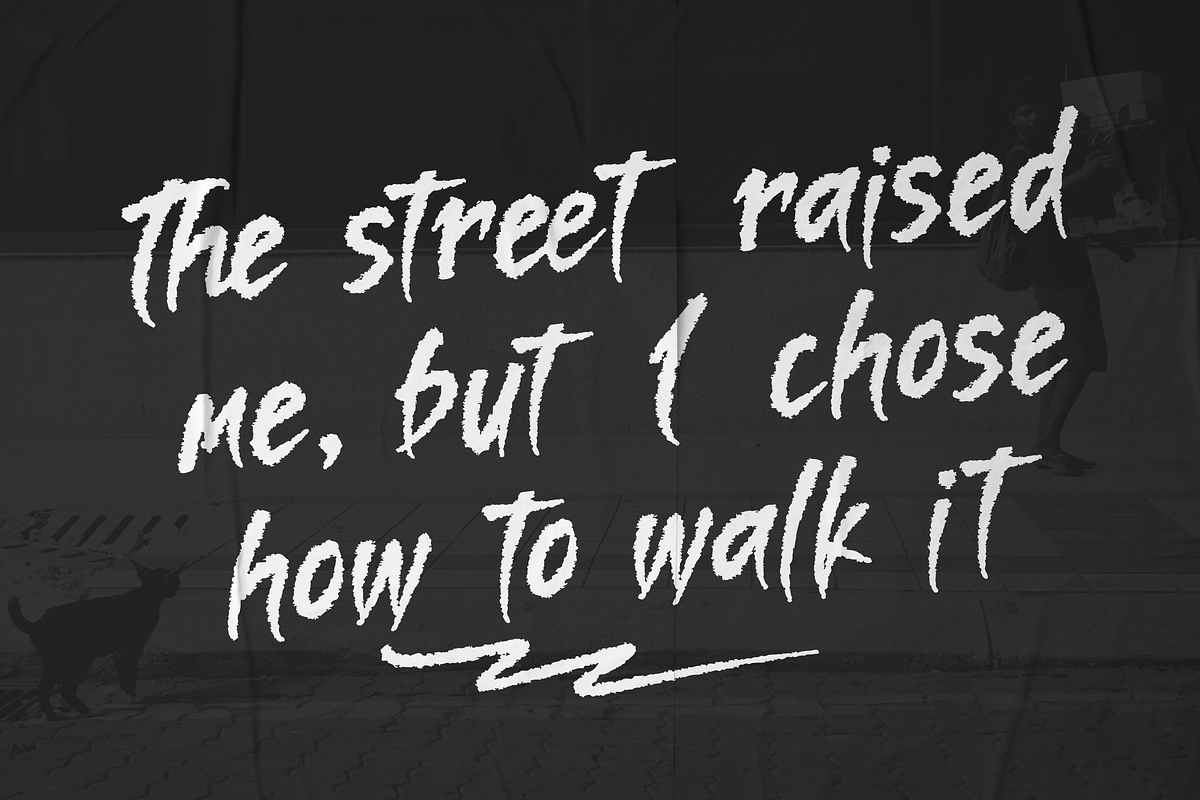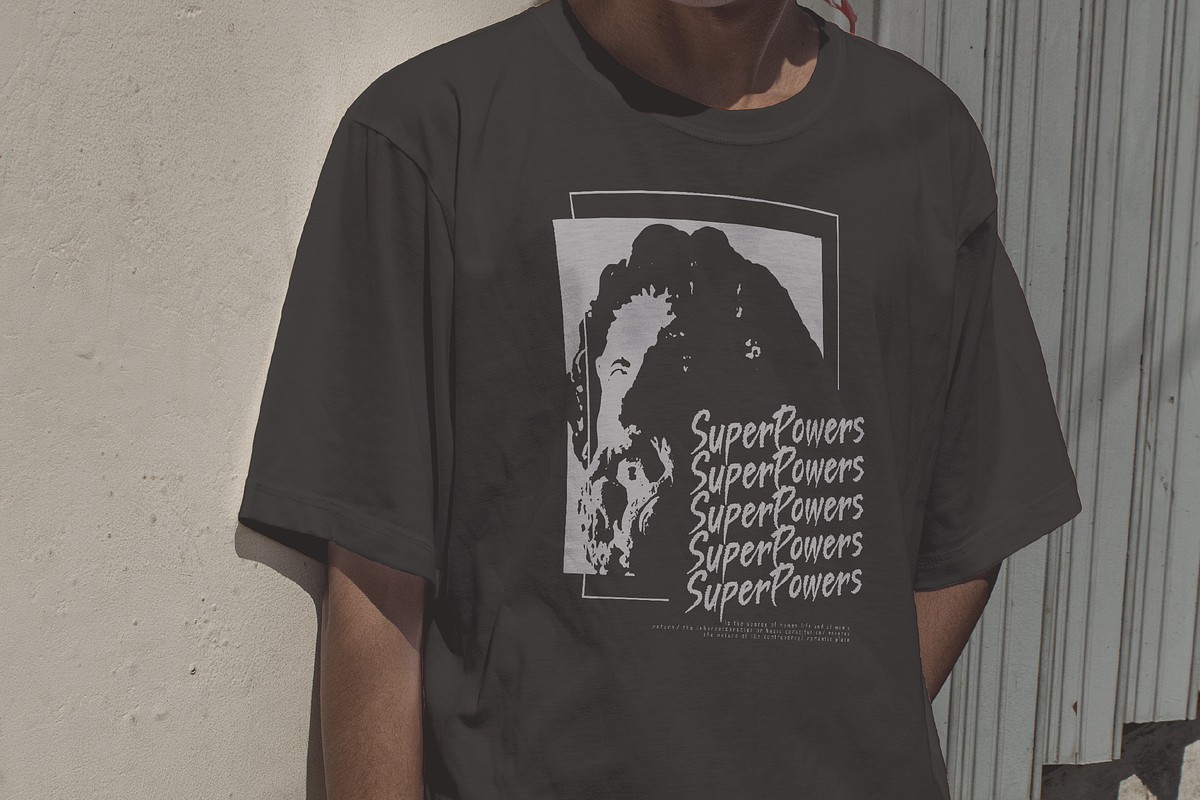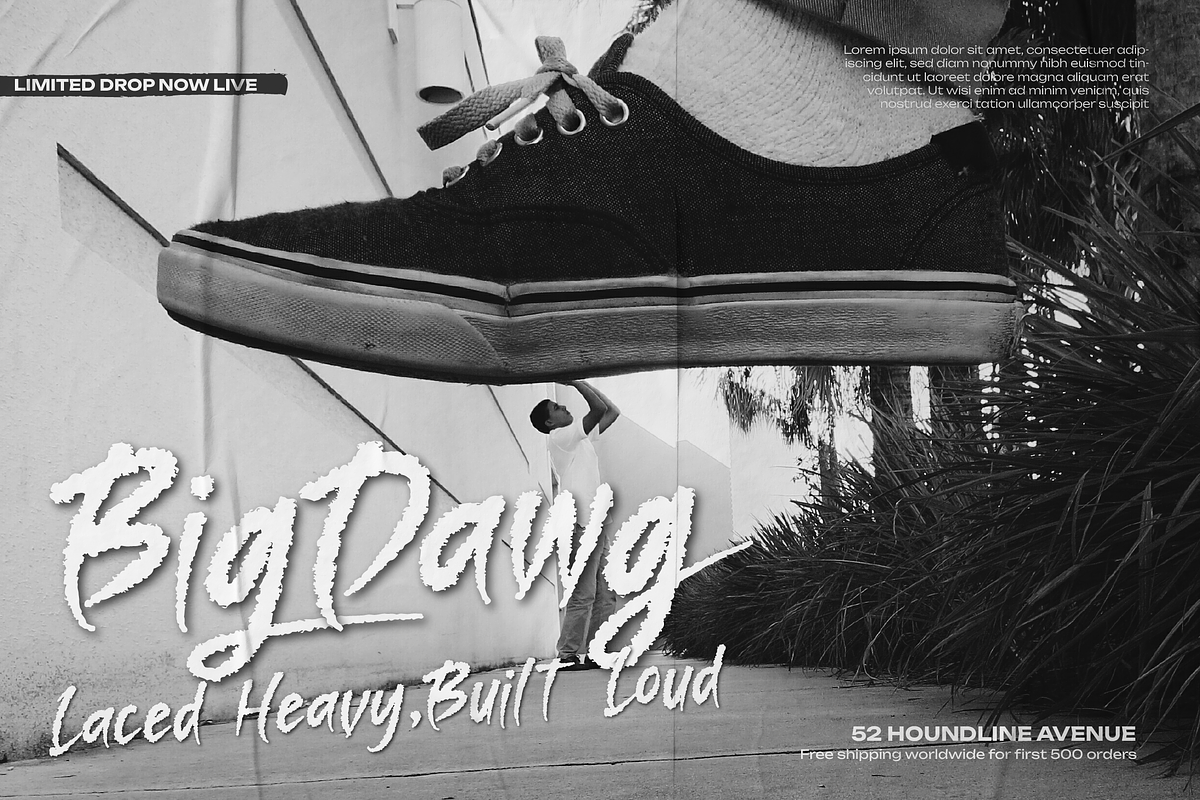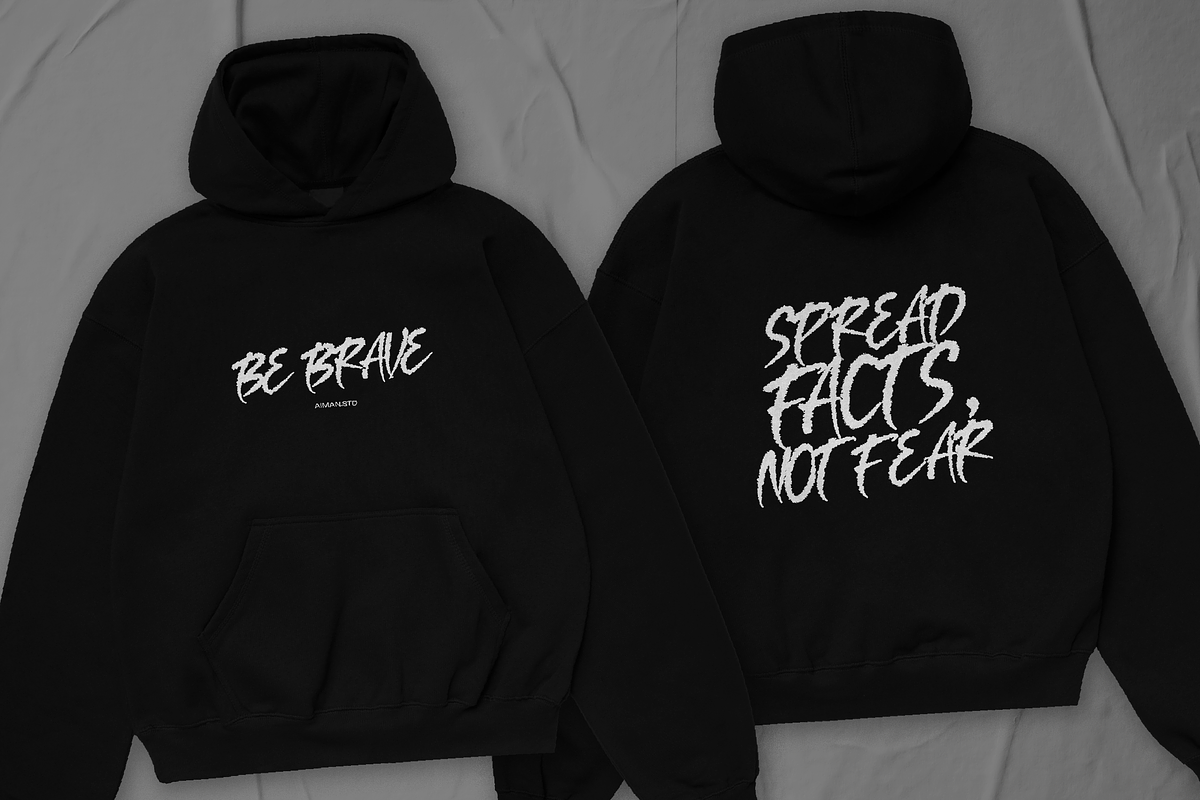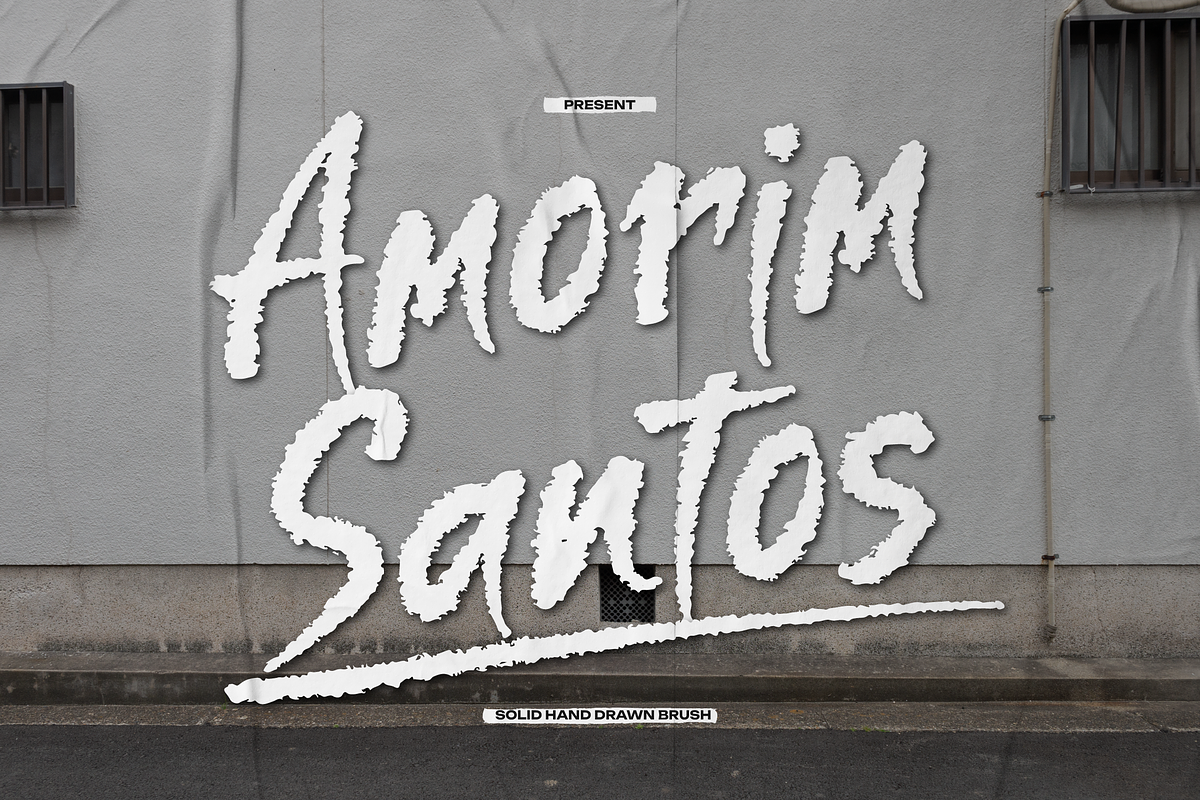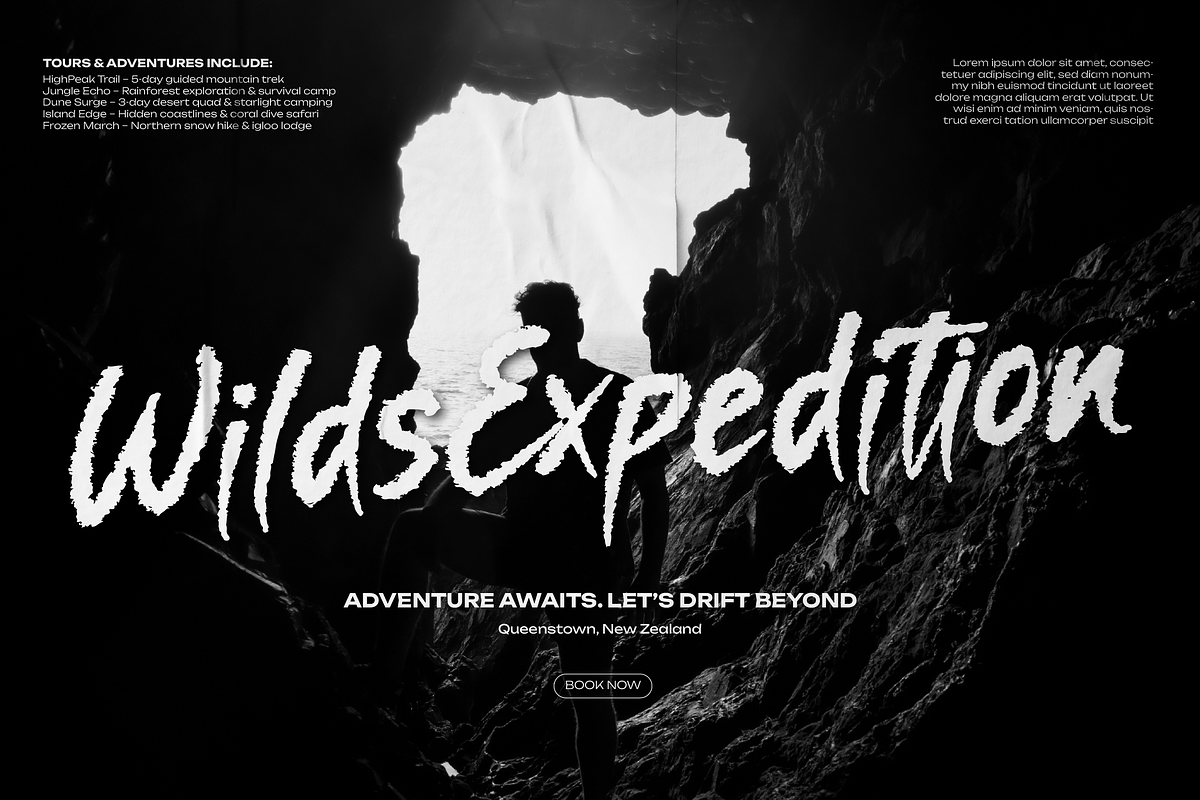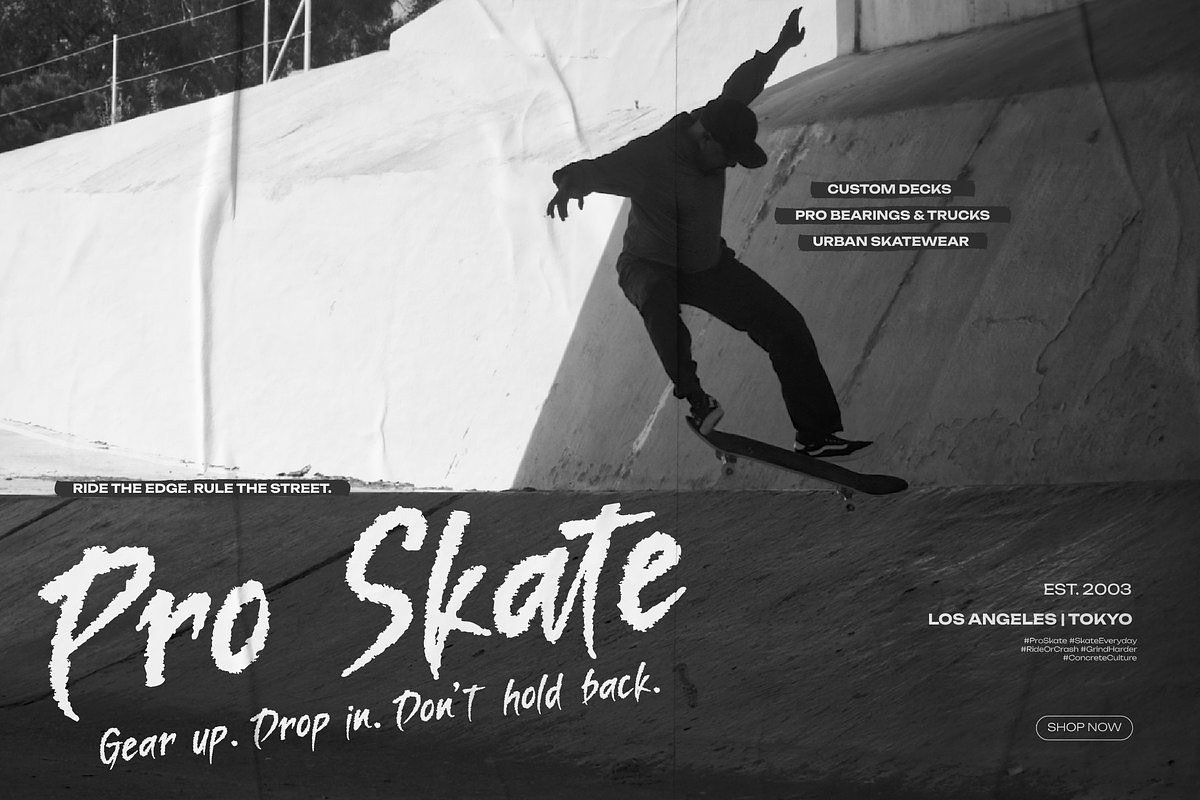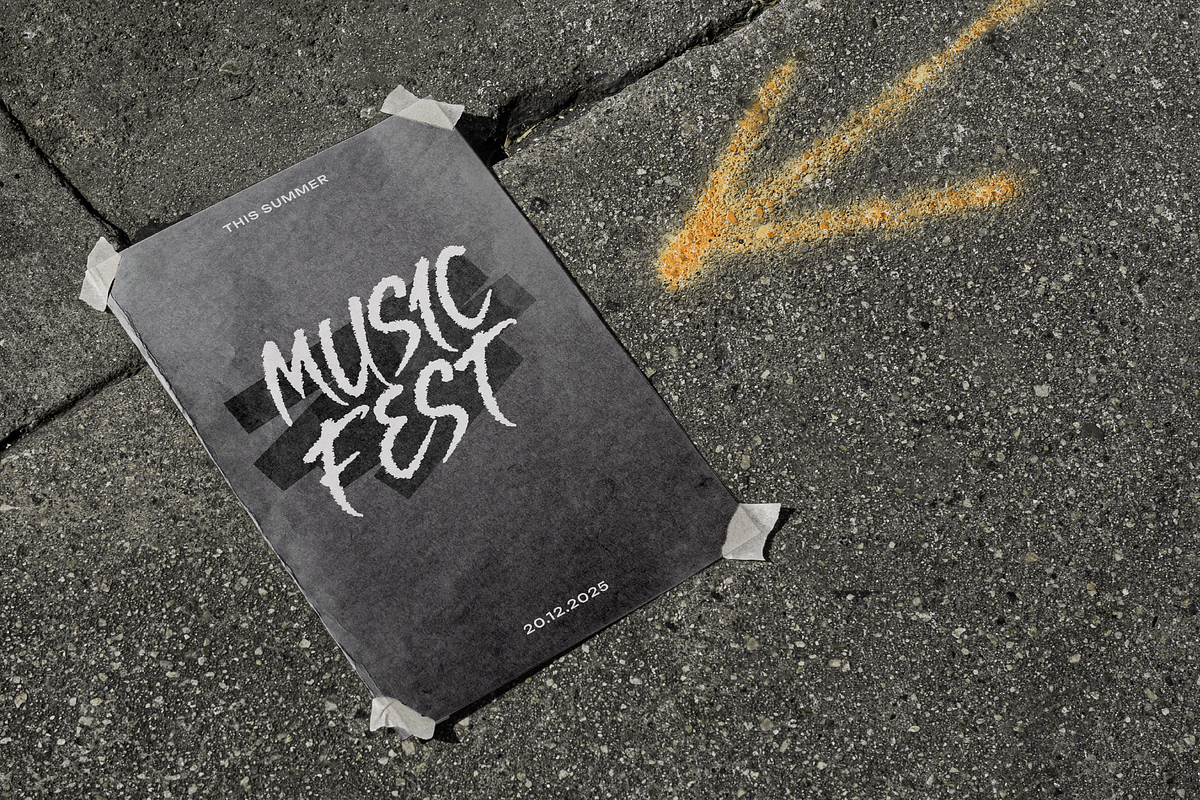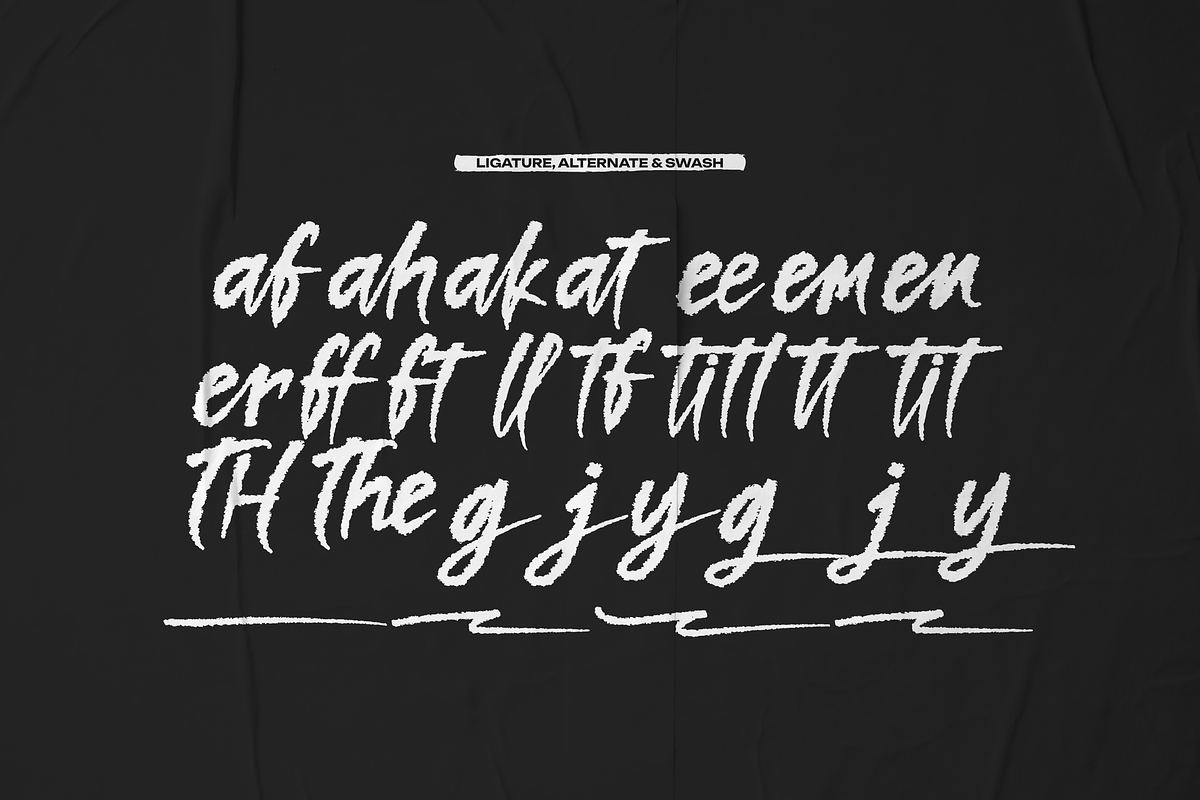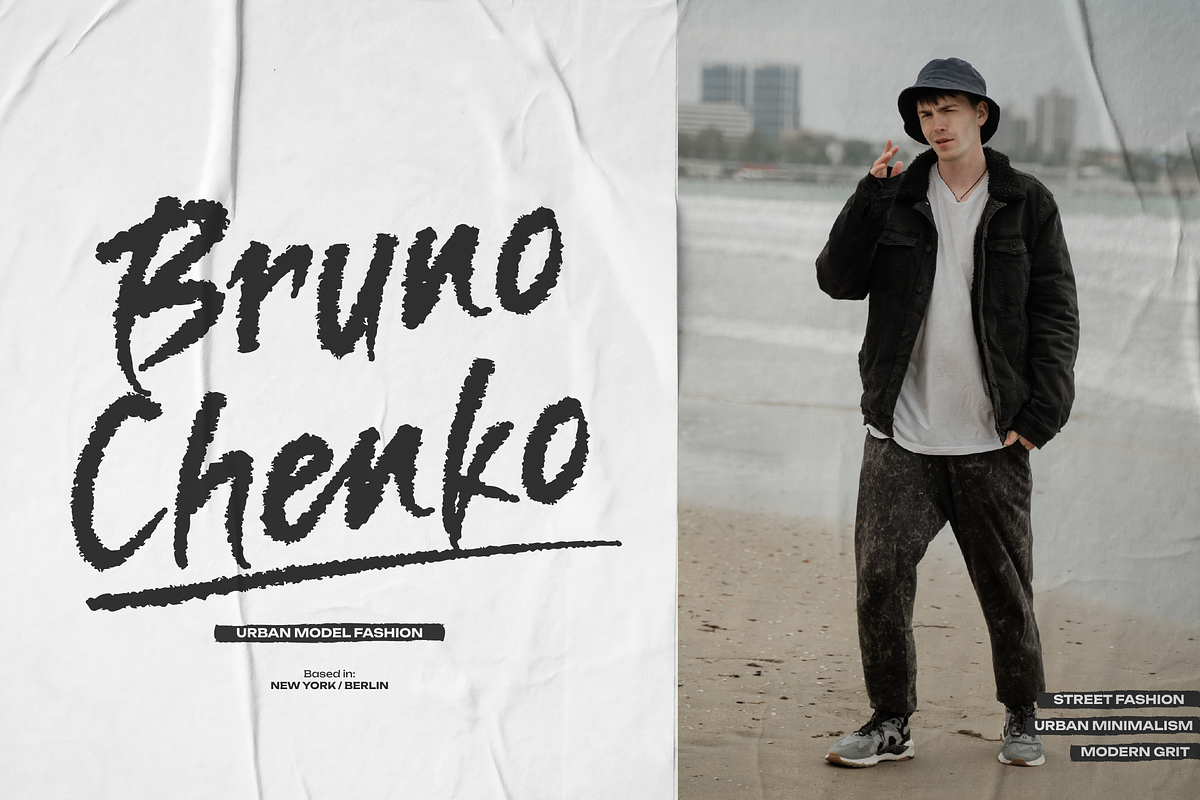
Amorim Santos Solid Hand Drawn Brush
Amorim Santos | Solid Hand Drawn Brush, from Gracetypestudio, suitable for any projects such as: logos, branding projects, homeware designs, product packaging, mugs, quotes, posters, shopping bags, t-shirts, book covers, name card, invitation cards, greeting cards, label, photography, watermark, special events, and all your other lovely projects that need a Solid Hand Drawn Brush taste.